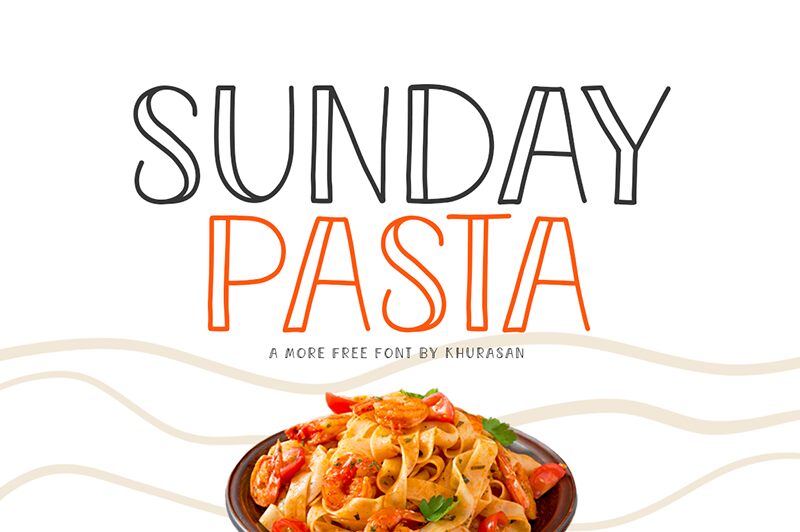
Sunday Pasta
Sunday Pasta is a modern and cute handwritten display font designed by Khurasan. With its playful and artistic style, this font is perfect for a wide range of projects.
Whether you're designing posters, logos, magazines, book covers, or banners, Sunday Pasta will add a touch of charm and uniqueness to your creations. Its versatility allows it to seamlessly blend with various themes and aesthetics.